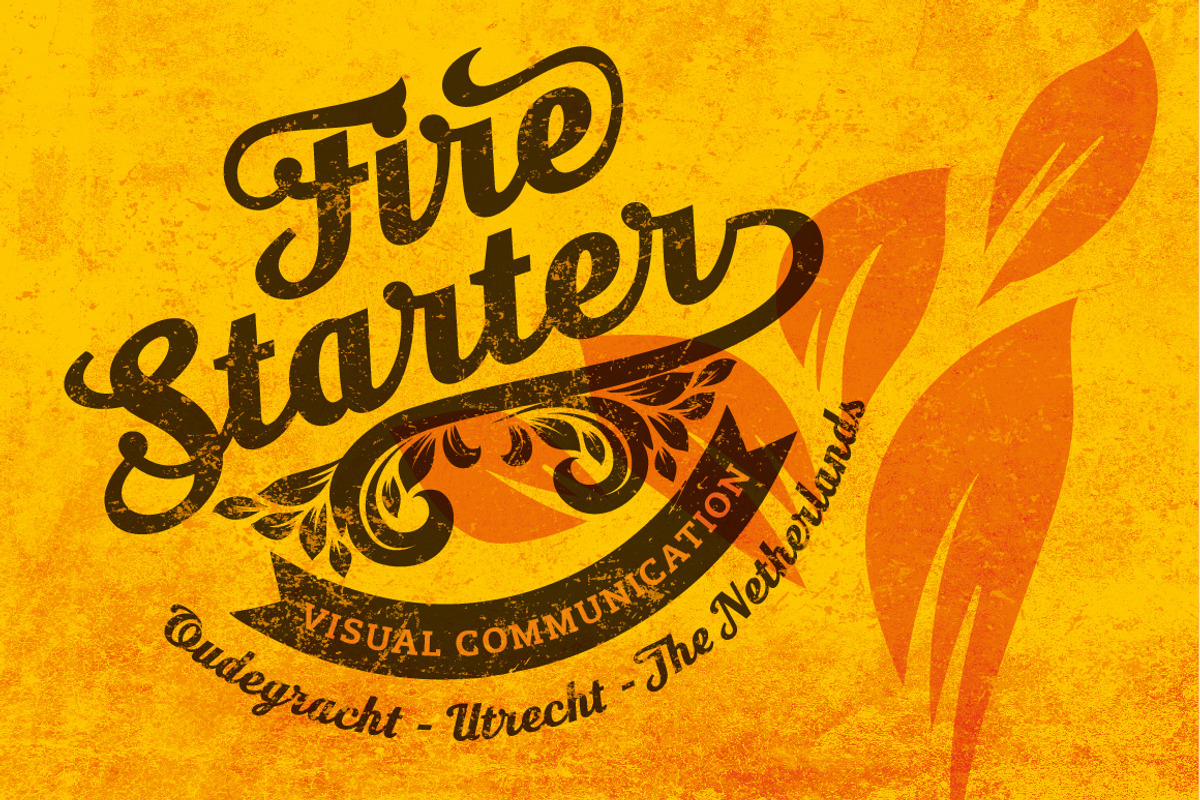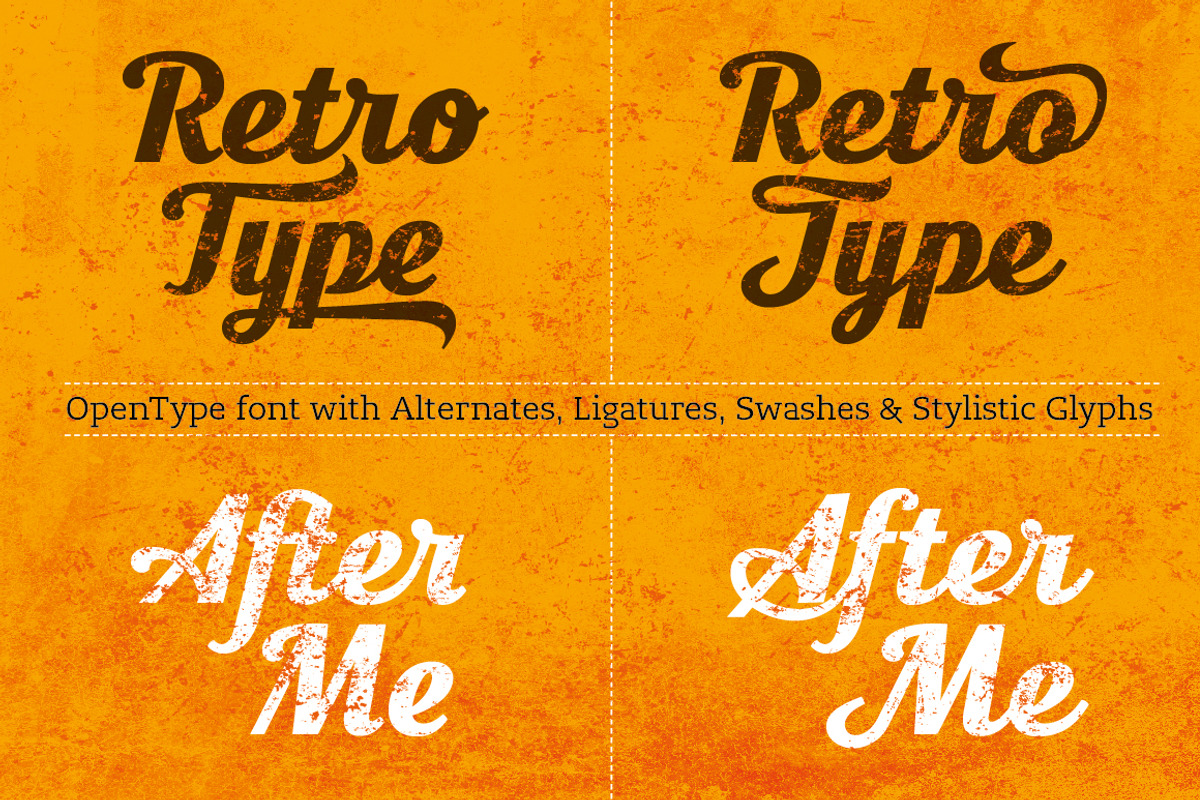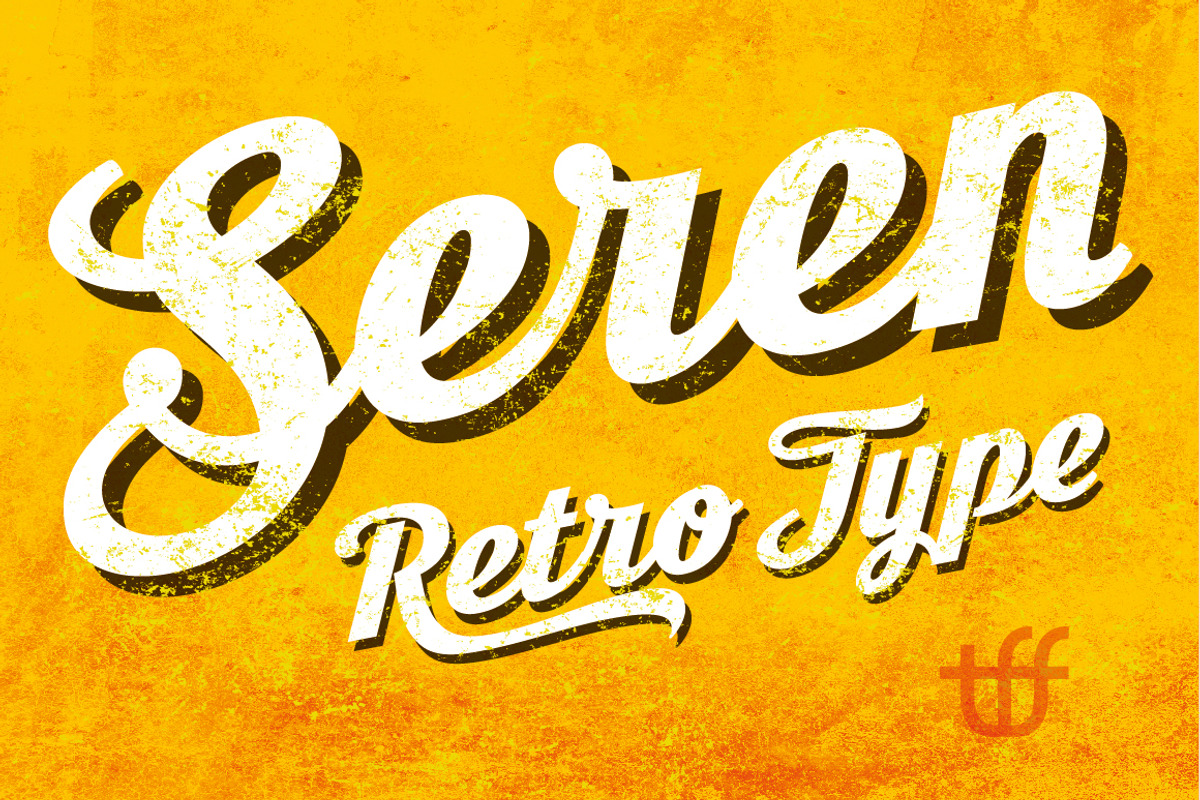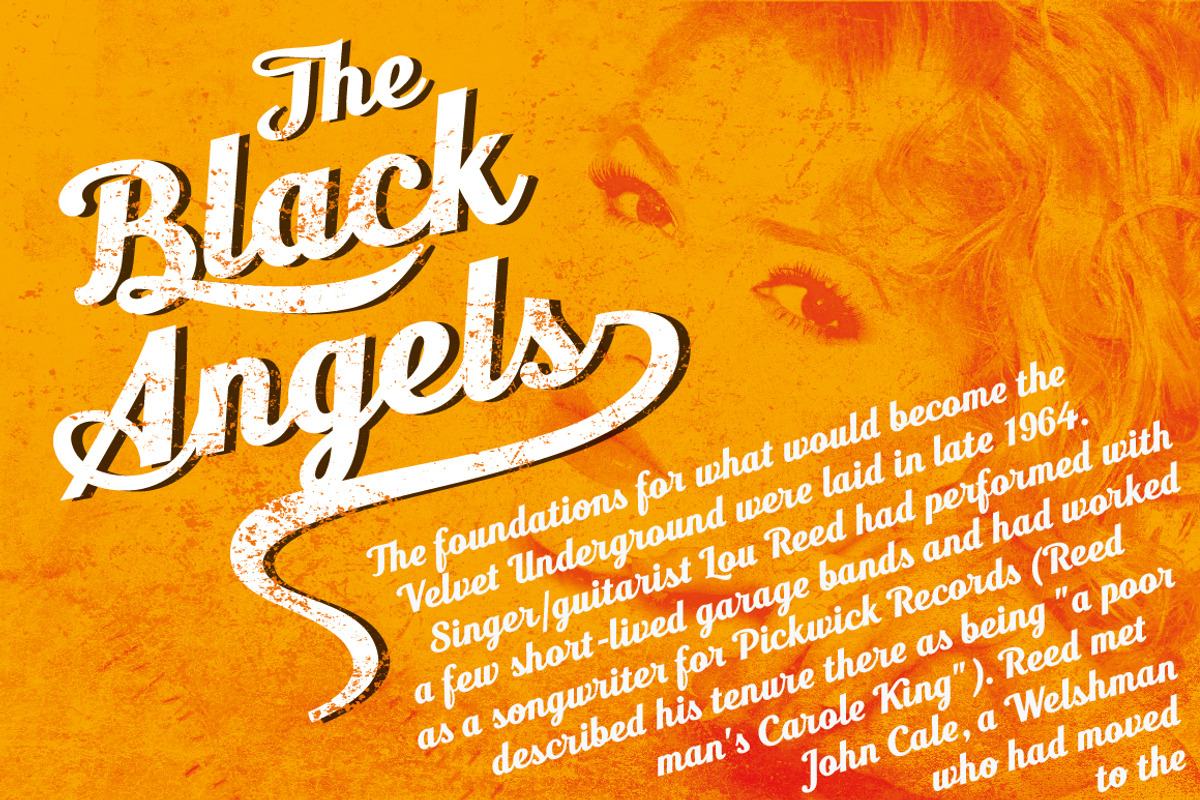
Seren Script
Seren Script by TypeFaith Fonts is a font selected for branding, posters, packaging, typography.
- Seren is a retro font that contains 430 glyph, the OpenType feature can be used to create your own custom typo and design.
Why Seren Script is worth a look
Seren Script by TypeFaith Fonts fits naturally into Branding, posters, packaging, typography.